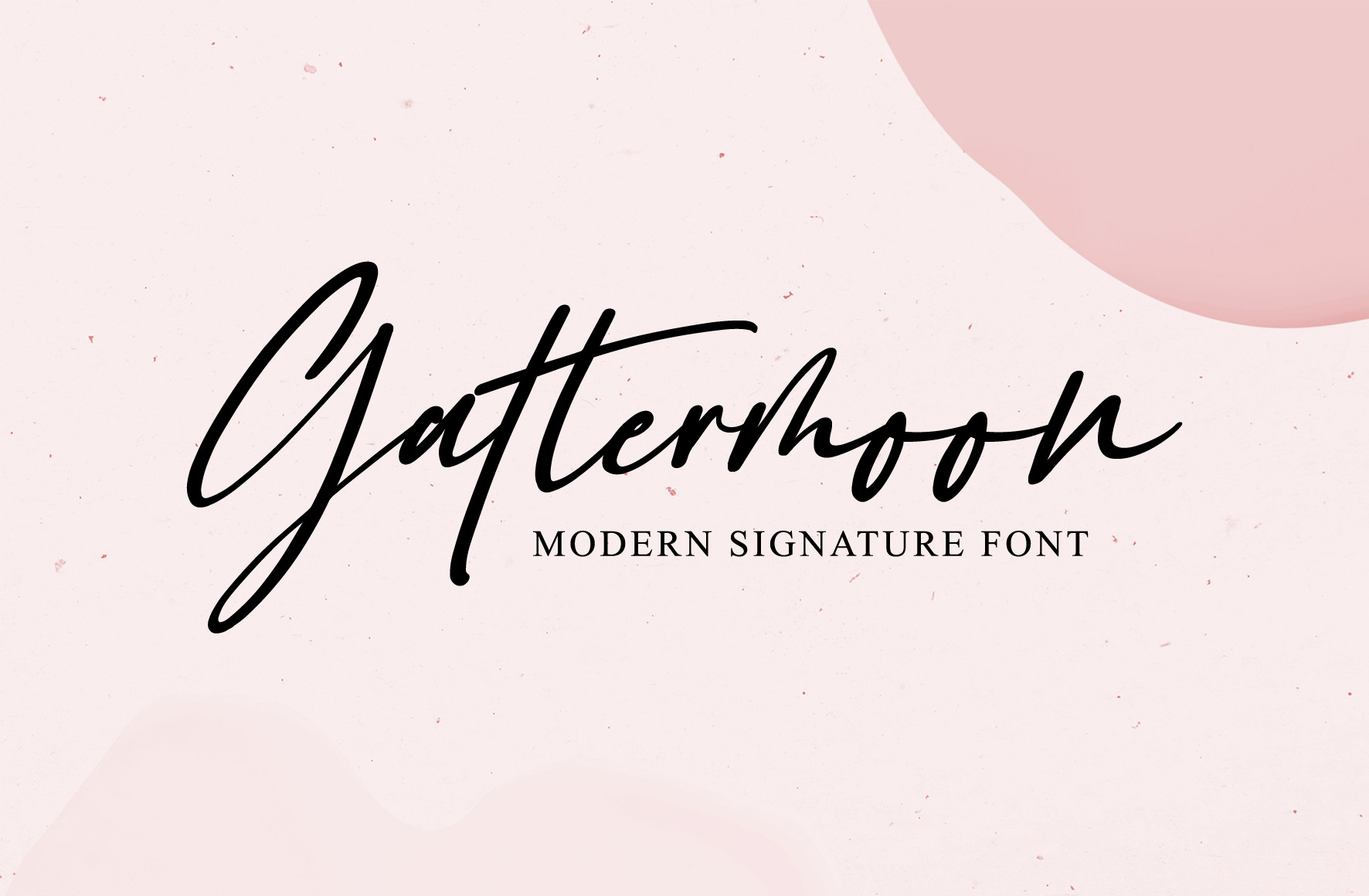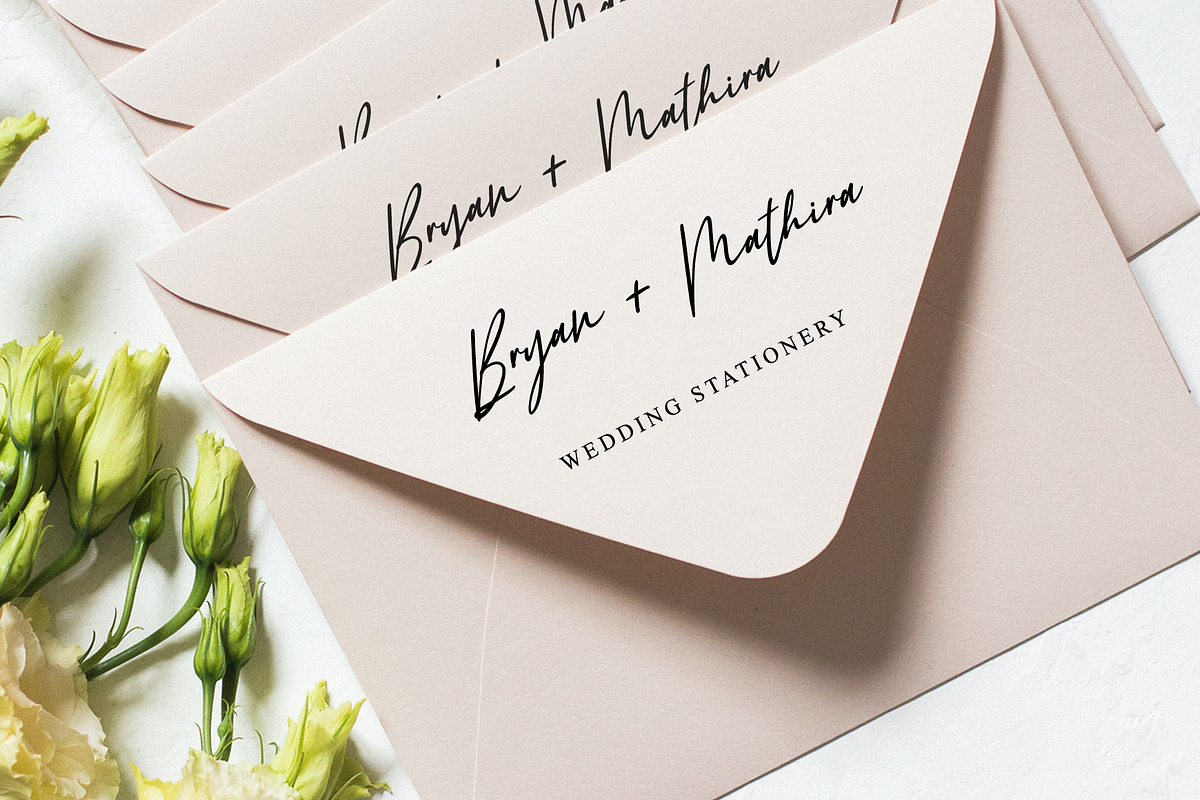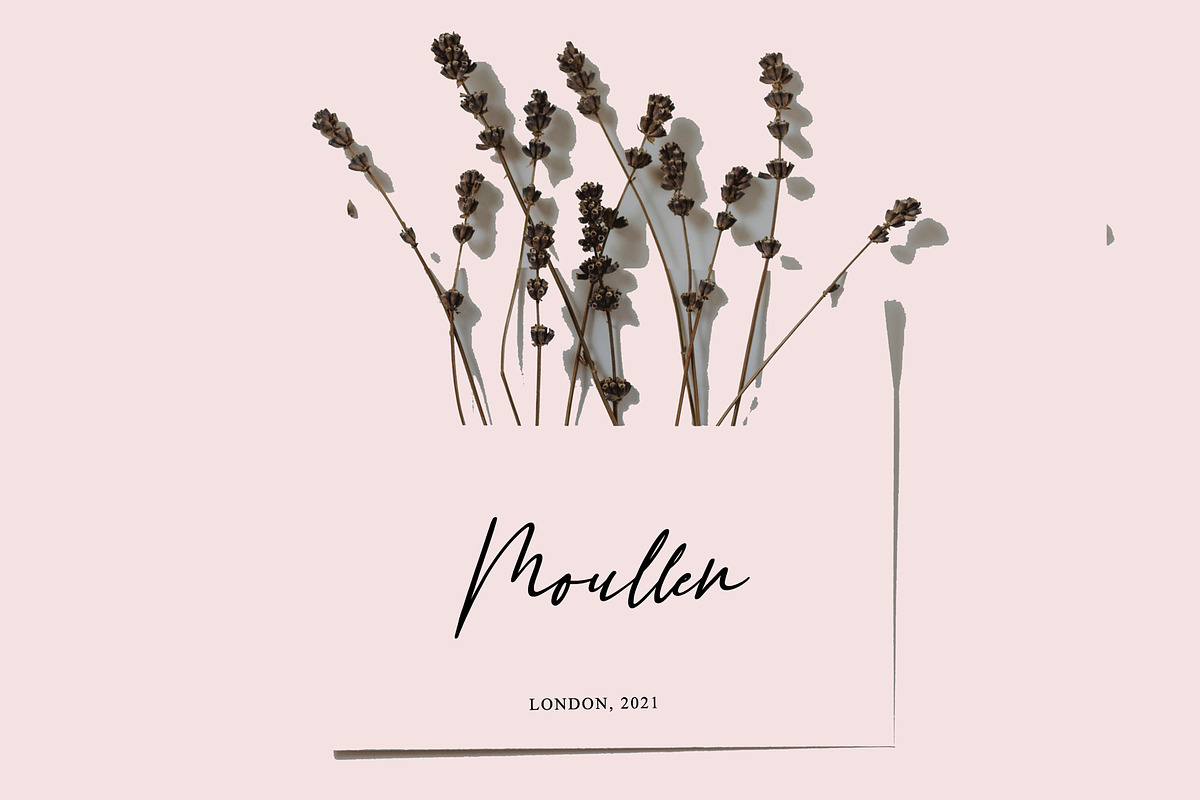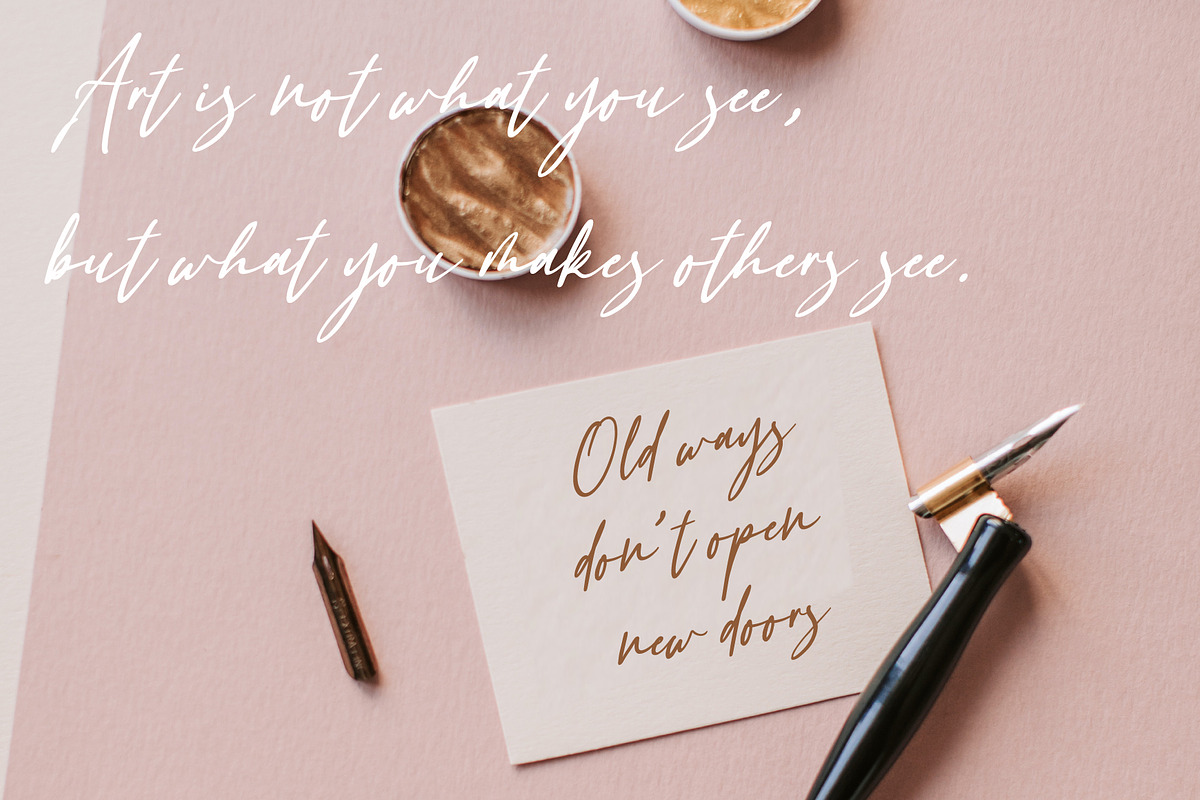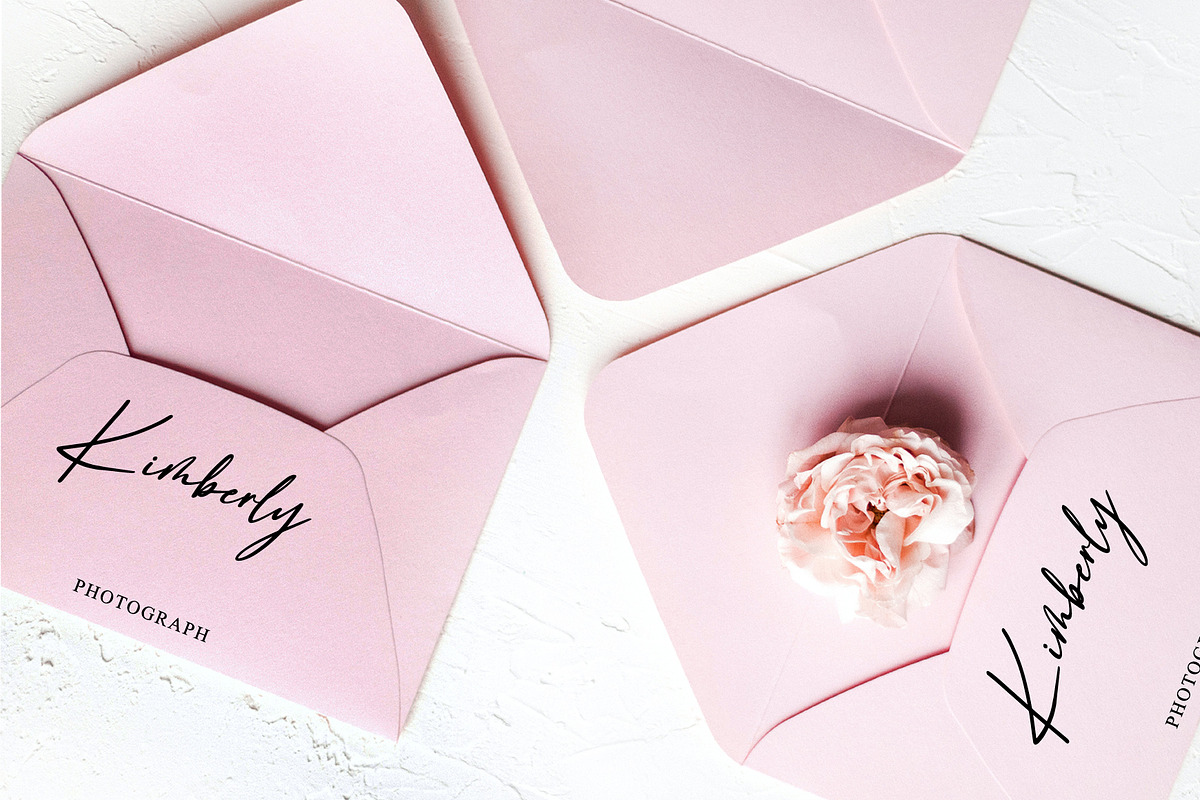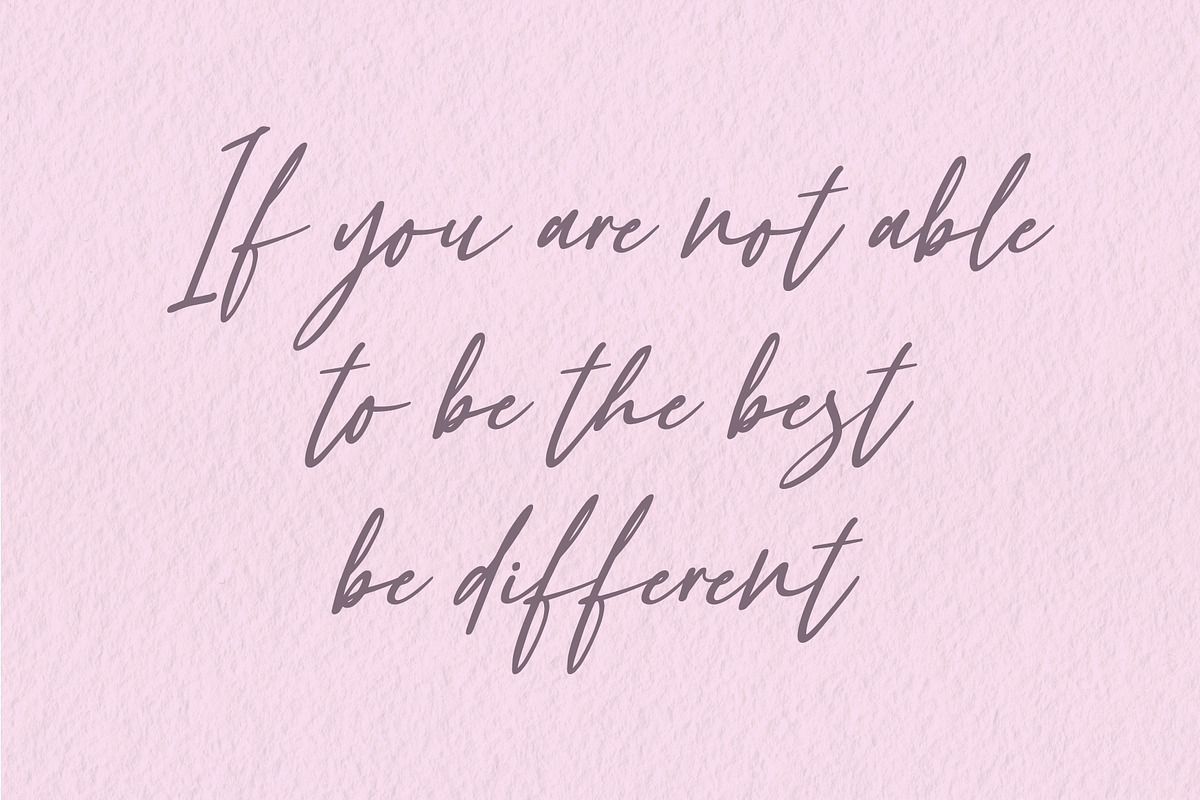
Gattermoon // Modern Script Font
Gattermoon Script takes you away for romantic rendezvous with your love of signature handwritten scripts. Slightly slick, slightly classy, gattermoon is a must-have for any signature handwritten font collection. Gattermoon adds a different nuance because of its different slope. It's a little more cheerful and relaxed and tends to be more elegant.
Perfect for branding, wedding stationery, cover designs, classy packaging, quotes, greeting cards, social media, posts and more.